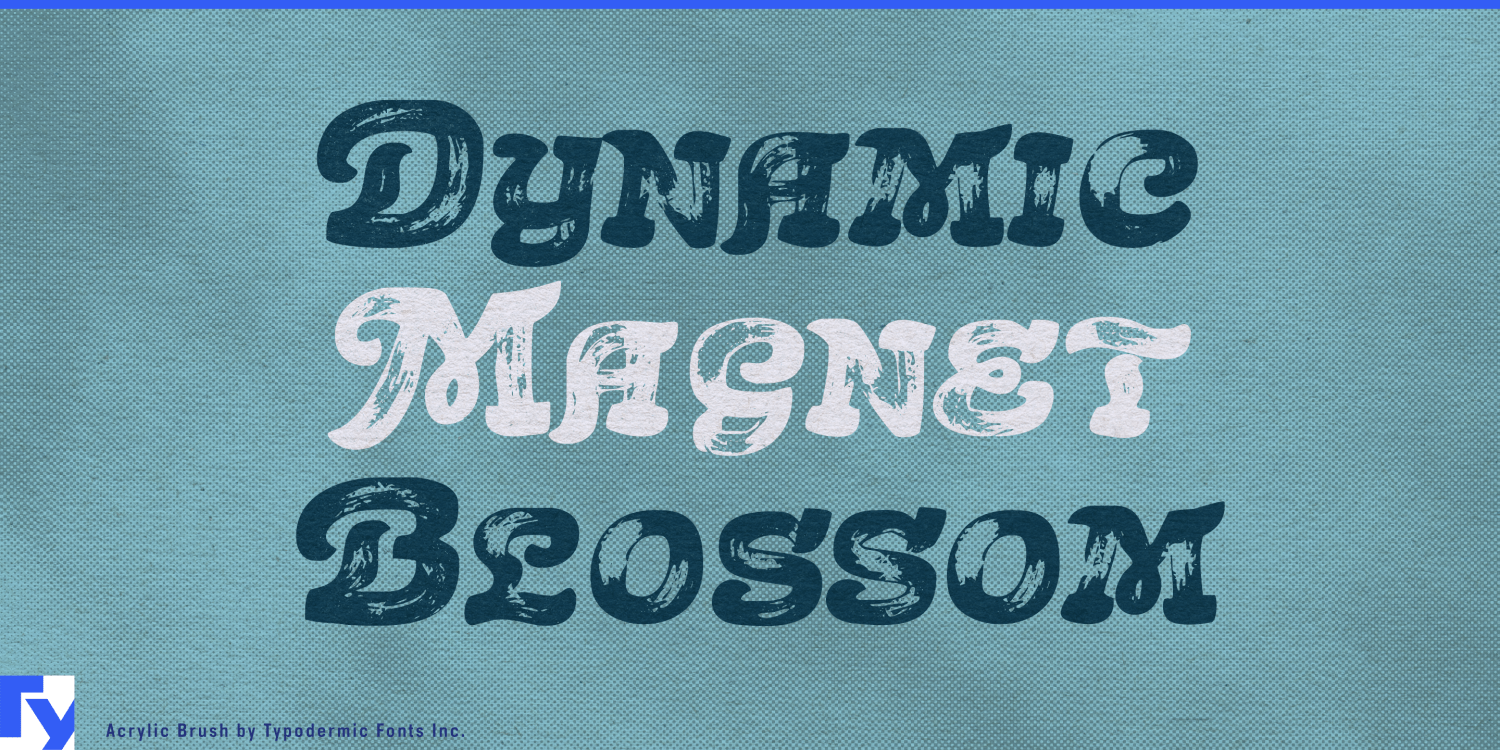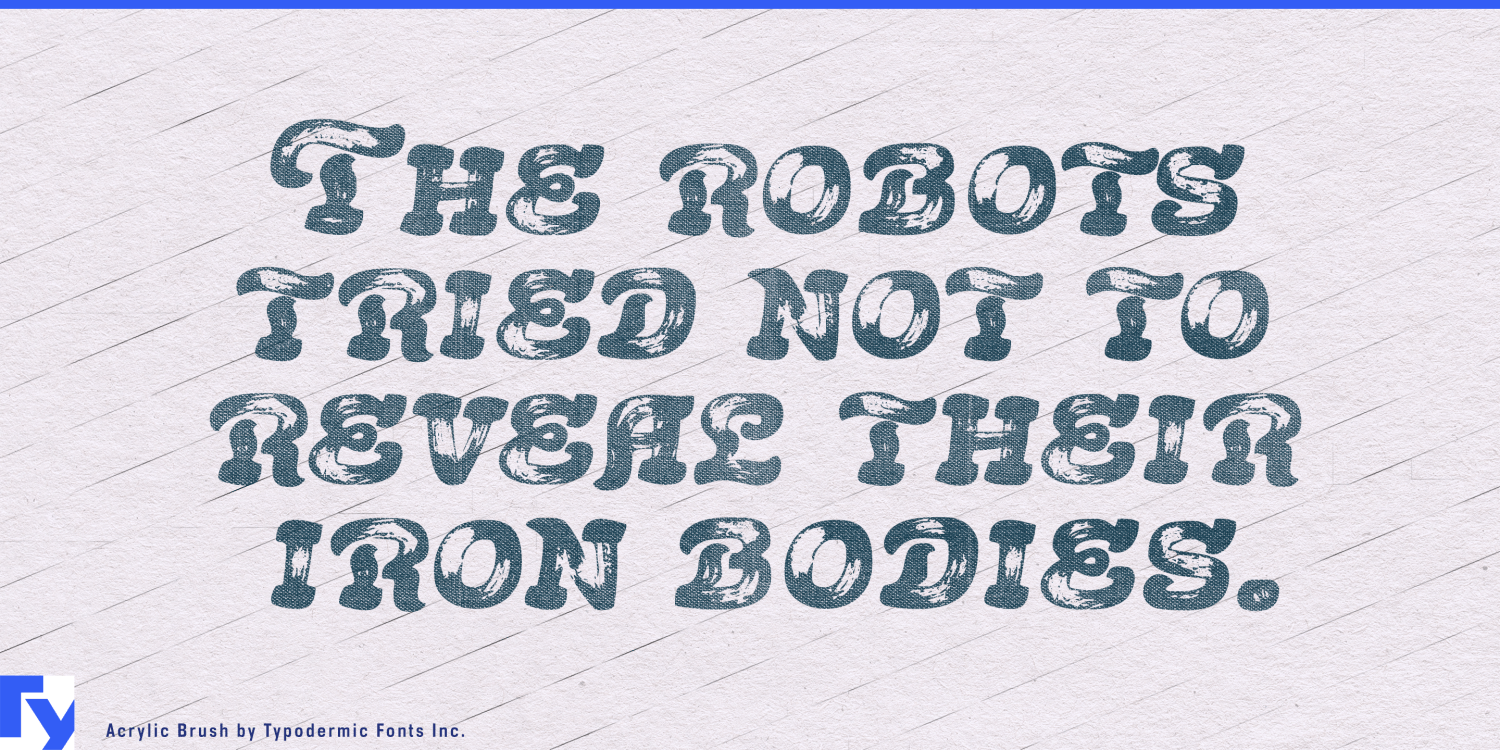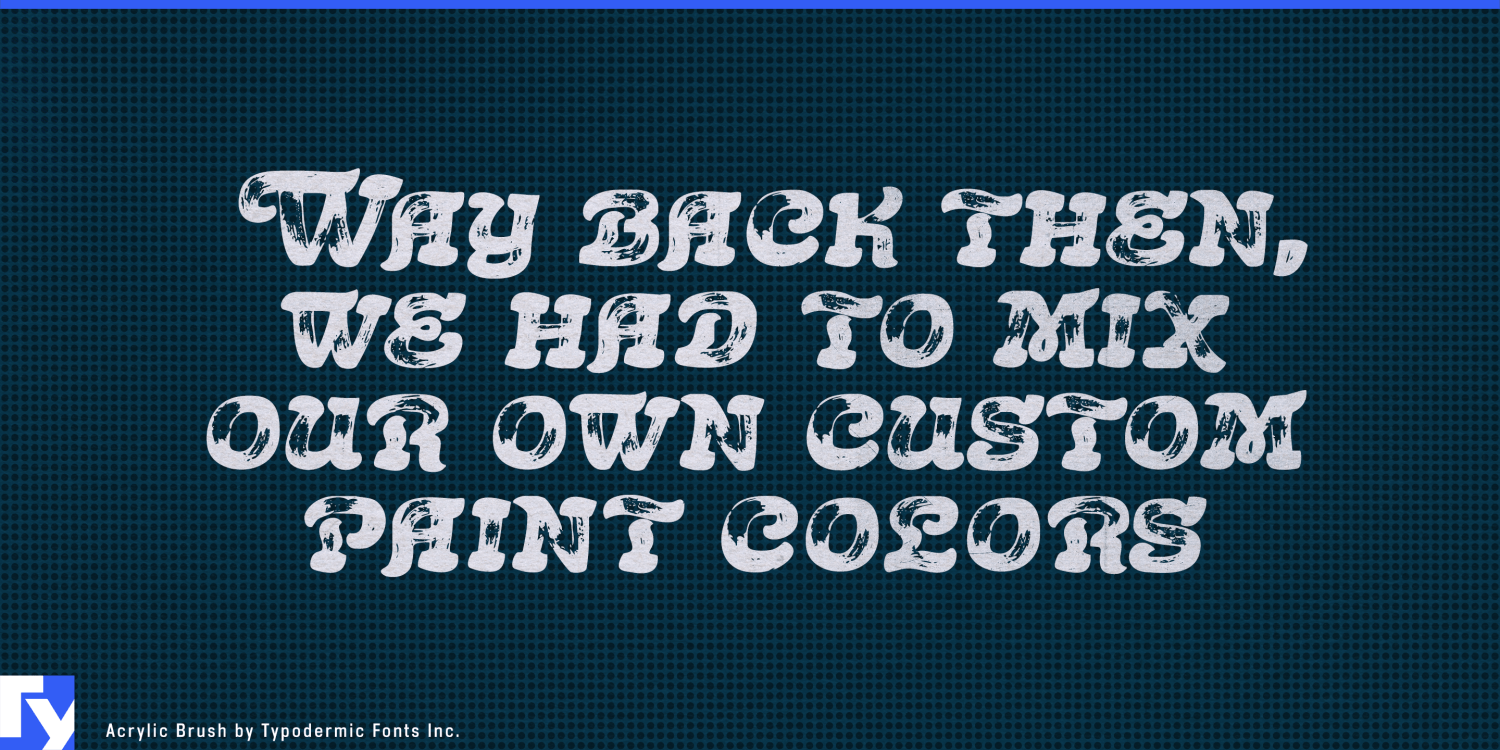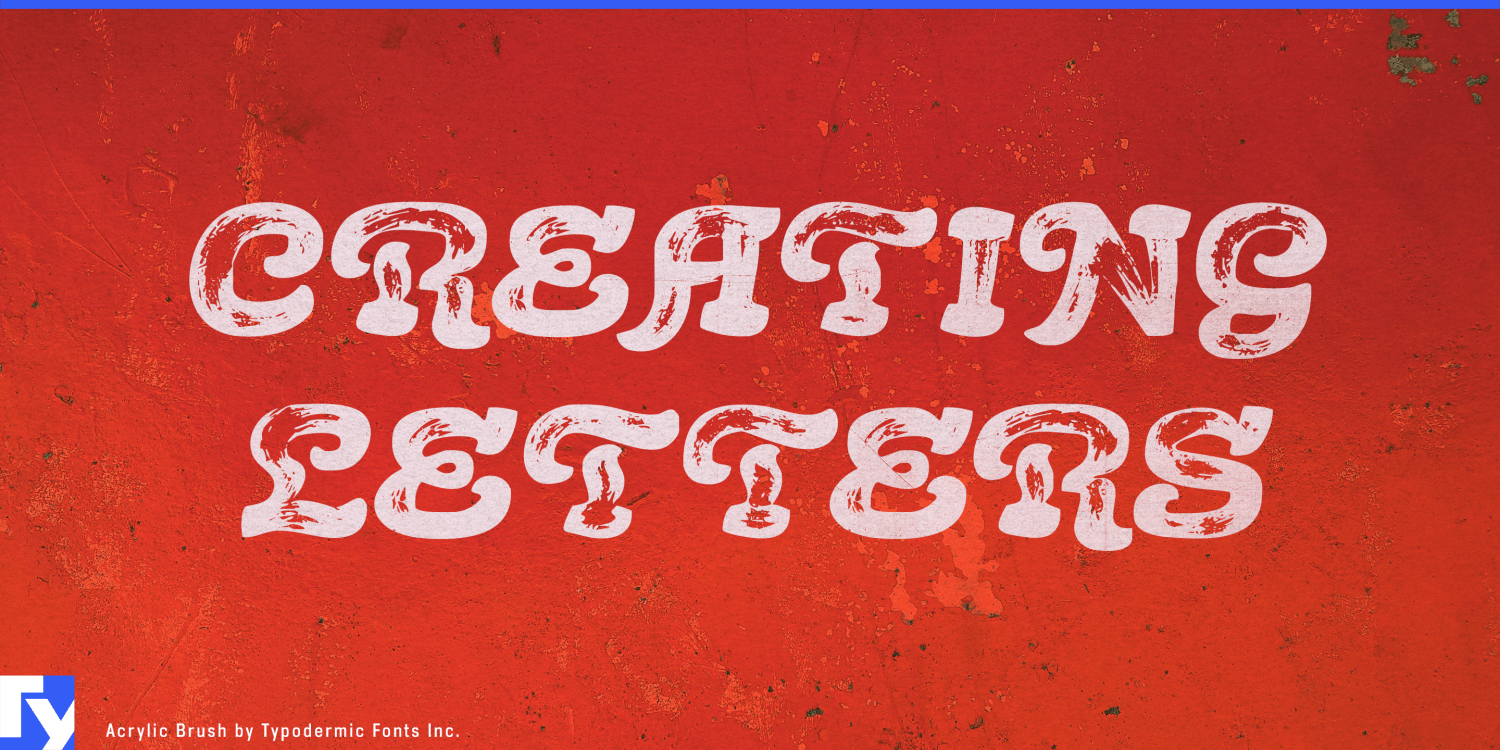
About Acrylic Brush
Discover Acrylic Brush, an exquisite script typeface that infuses designs with artistic sophistication. This unique font family stands out with its small-caps and unconnected style, offering a refined aesthetic that elevates any project. Acrylic Brush’s…